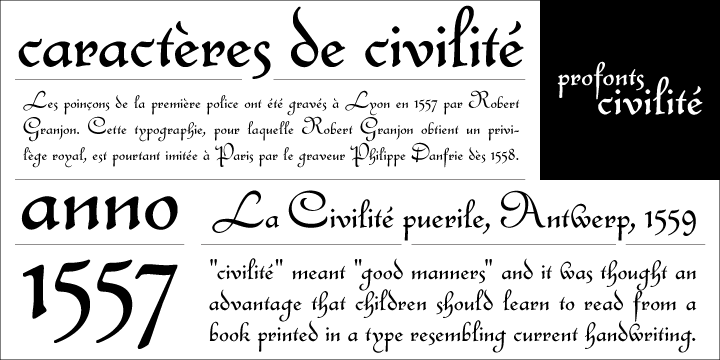
Civilite Font is perfect for diplomatic communications, government publications, legal documents, formal invitations, ceremonial materials, and institutional branding. Its dignified character makes it ideal for embassies, international organizations, academic institutions, cultural foundations, and any application requiring respectful, courteous typography that conveys civility, professionalism, and diplomatic excellence.
Civilite Font is exciting because it masterfully embodies the principles of respectful communication through refined typographic design, creating a typeface that promotes harmony and understanding. Its balanced letterforms and dignified presence reflect the highest standards of diplomatic courtesy and professional decorum, making it perfect for organizations that value respectful dialogue and civil discourse. The font's sophisticated character helps establish trust and credibility in formal communications.
Civilite Font family includes distinguished weight variations typically featuring Light, Regular, Medium, Semibold, and Bold options with elegant italic styles. The family often incorporates formal characters, ceremonial elements, and extensive multilingual support designed for international diplomatic applications, providing designers with comprehensive tools for creating respectful, globally appropriate typographic solutions.